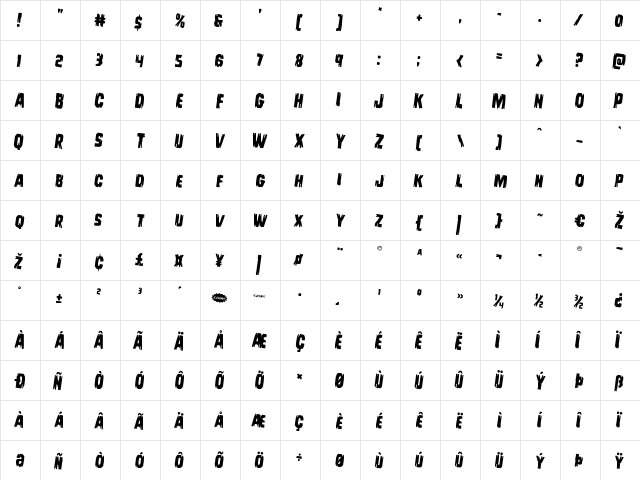
Leatherface Rotated 2 Regular
Design Context for Leatherface Rotated 2 Typeface
Leatherface Rotated 2 is a composed and adaptable typeface that performs quietly and consistently across a wide range of design contexts.
Pro Tip: Use Leatherface Rotated 2 in both headline and body roles to test its range before committing to a single application.